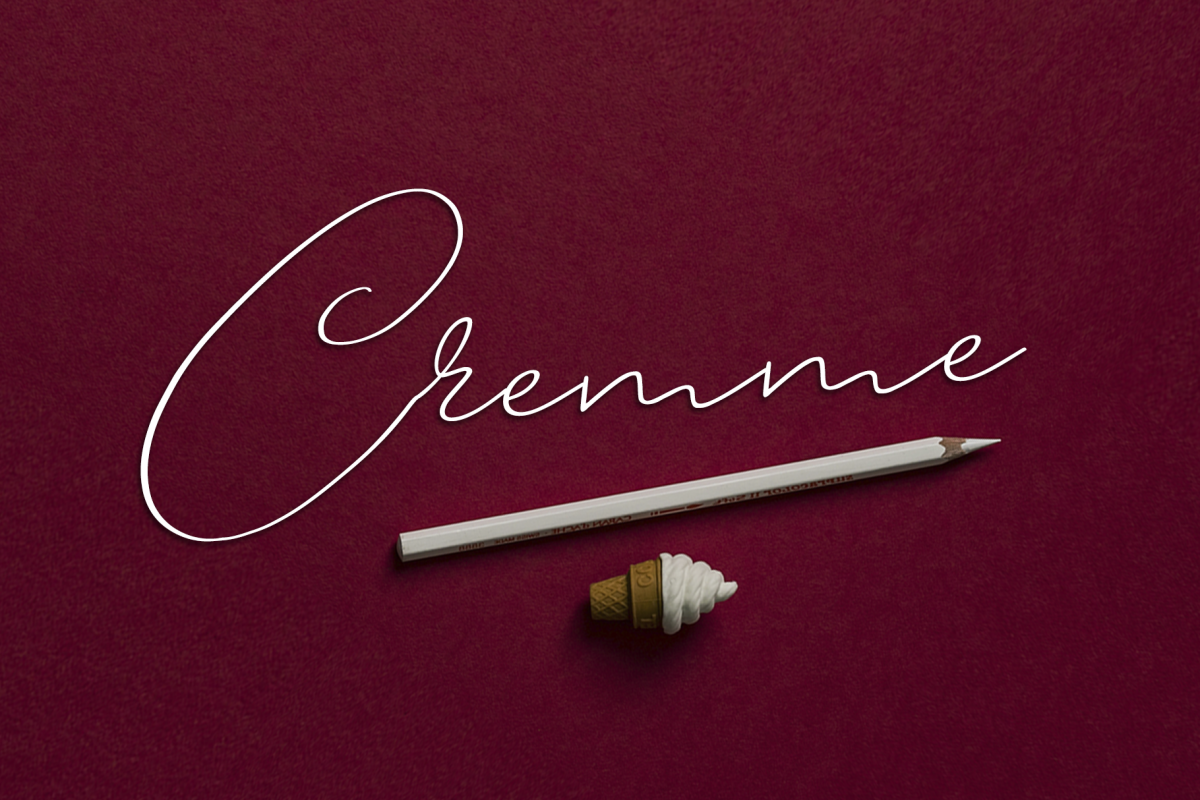
Cremme Script
Cremme is a thin script font. Inspired by handwritten postcards. Ornaments make this hand more expressive offering round stroke endings and a flowing shape.